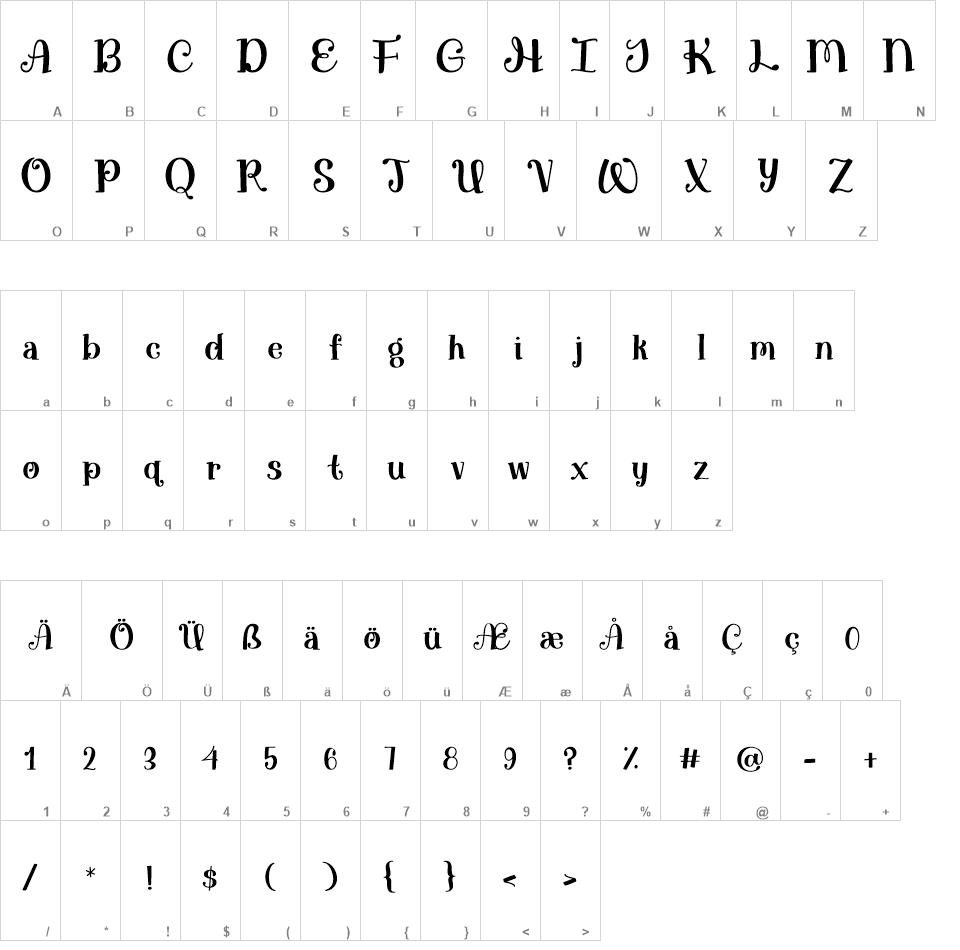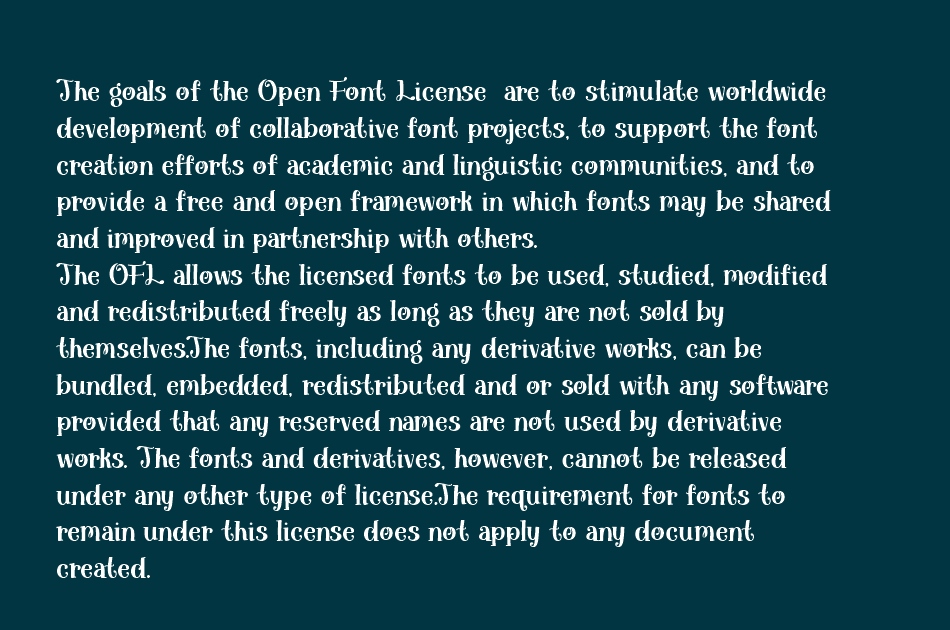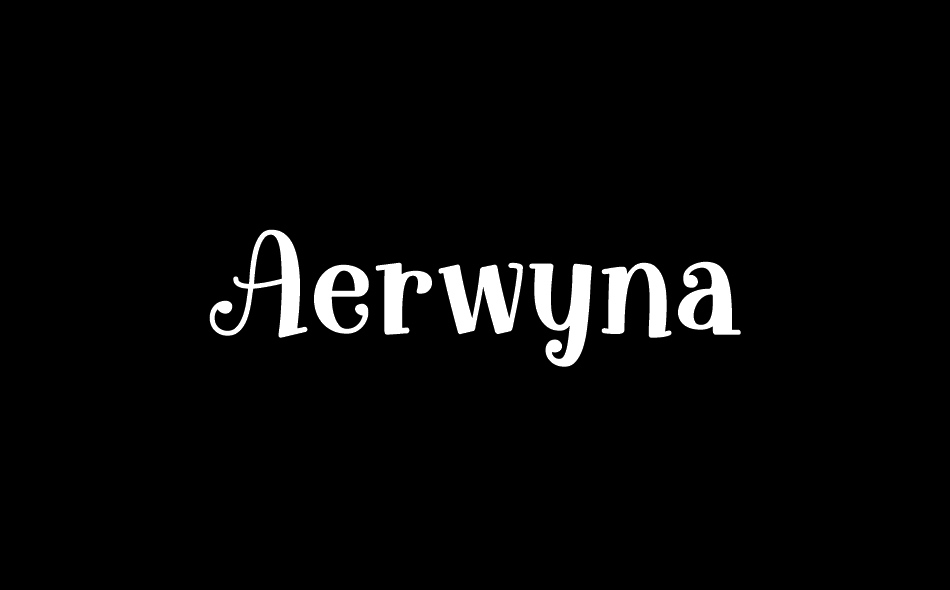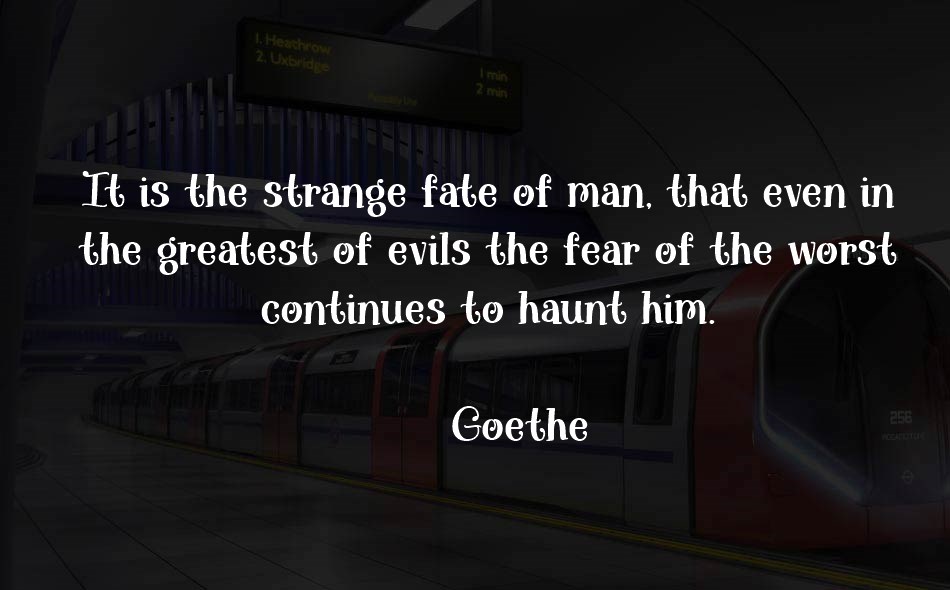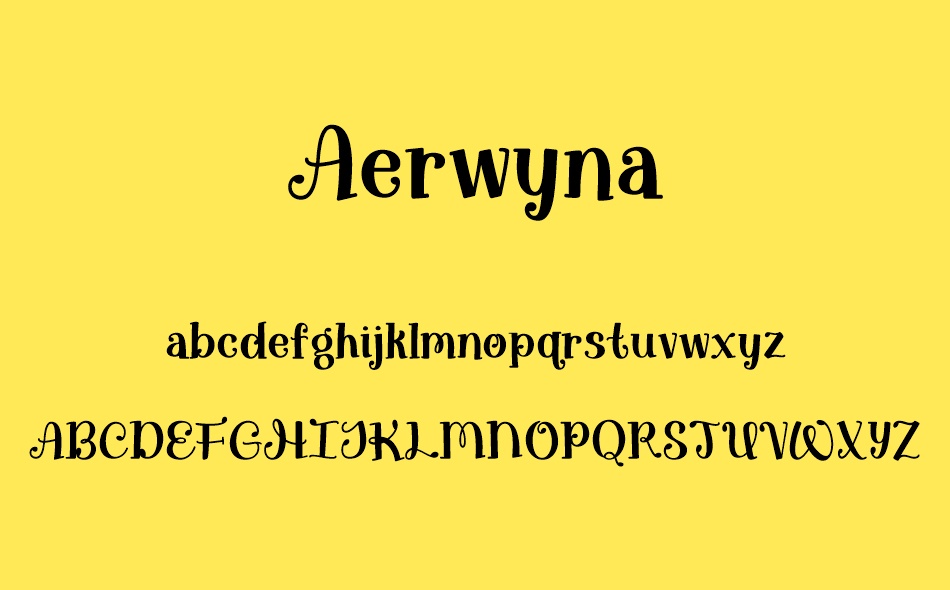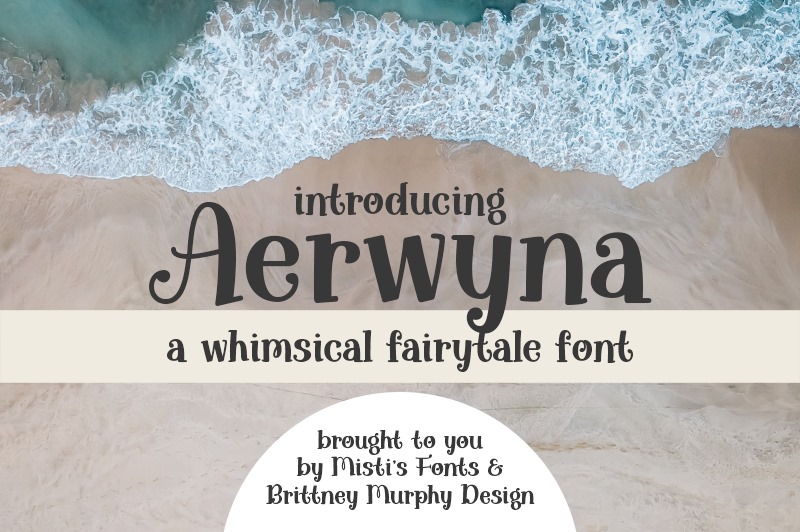
Aerwyna font
Aerwyna is a handdrawn serif created in collaboration with Mistis Fonts. Designed in a rustic, fairytale style, Aerwyna will add a touch of friendliness and whimsy to your design projects. Unique, yet highly legible, this font can be used for headlines, bylines, or content alike.